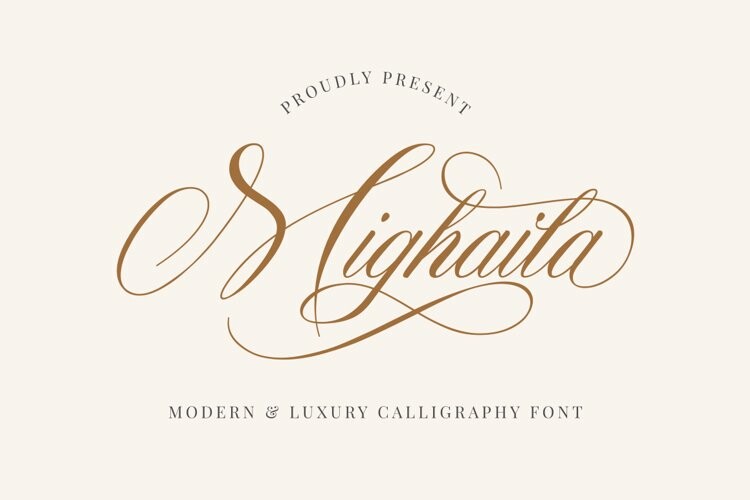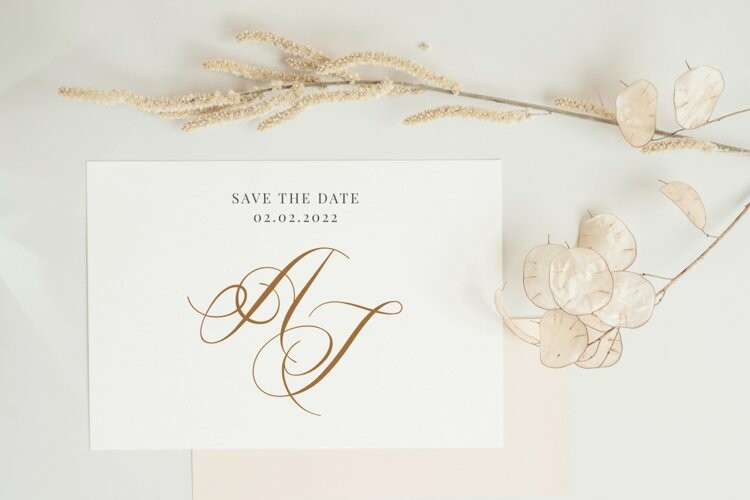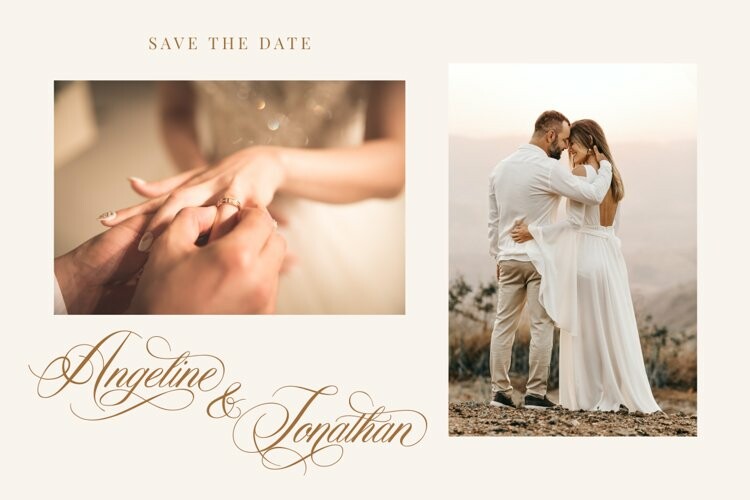
Mighaila Font
Mighaila FontMighaila is an modern & luxury calligraphy font. It will add a luxury spark to any design project that you wish to create! This font is PUA encoded which means you can access all of the amazing glyphs and ligatures with ease!